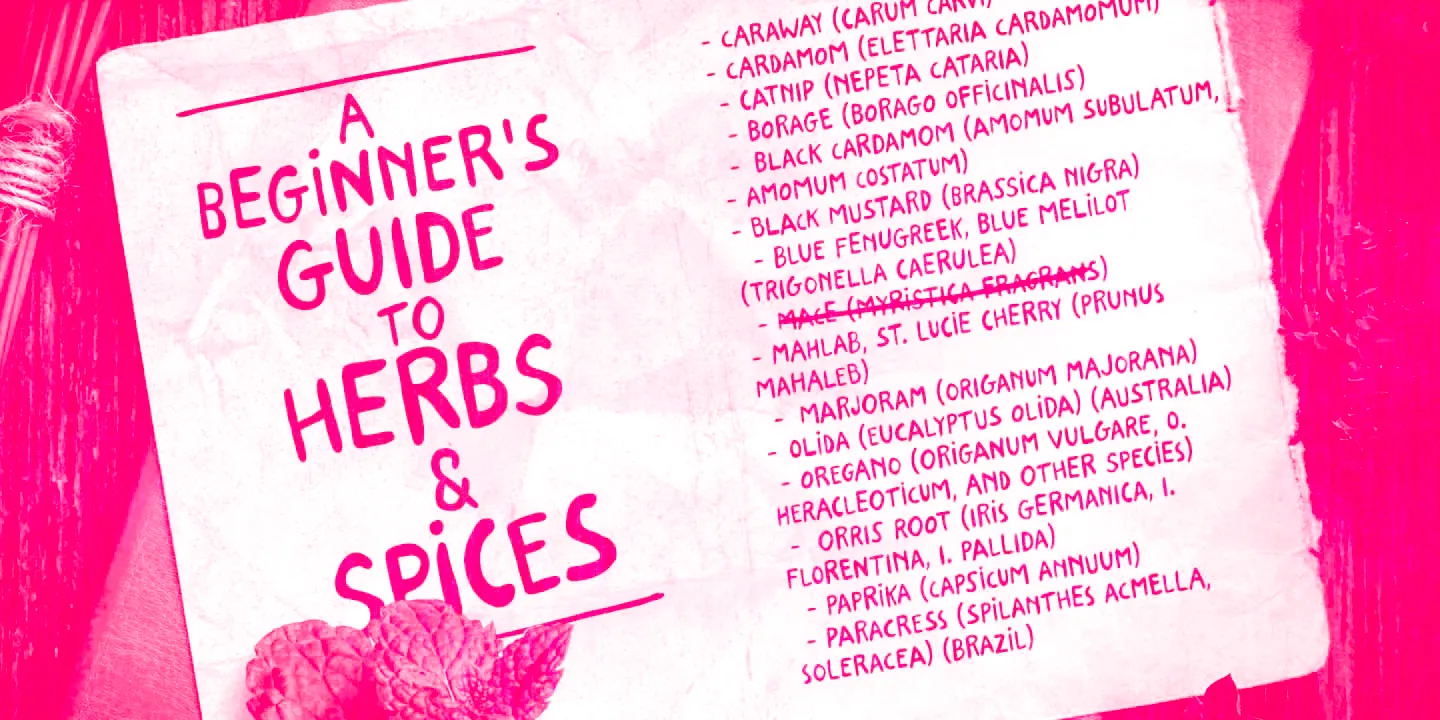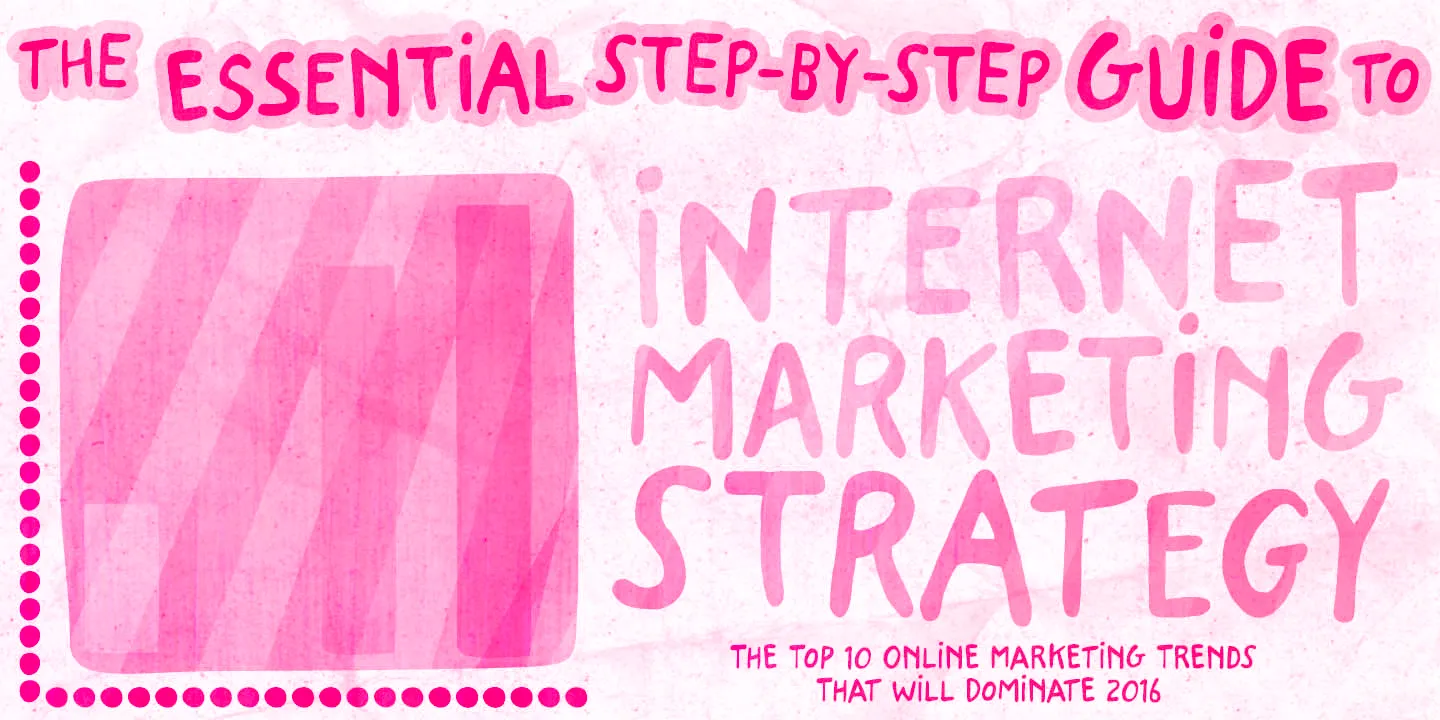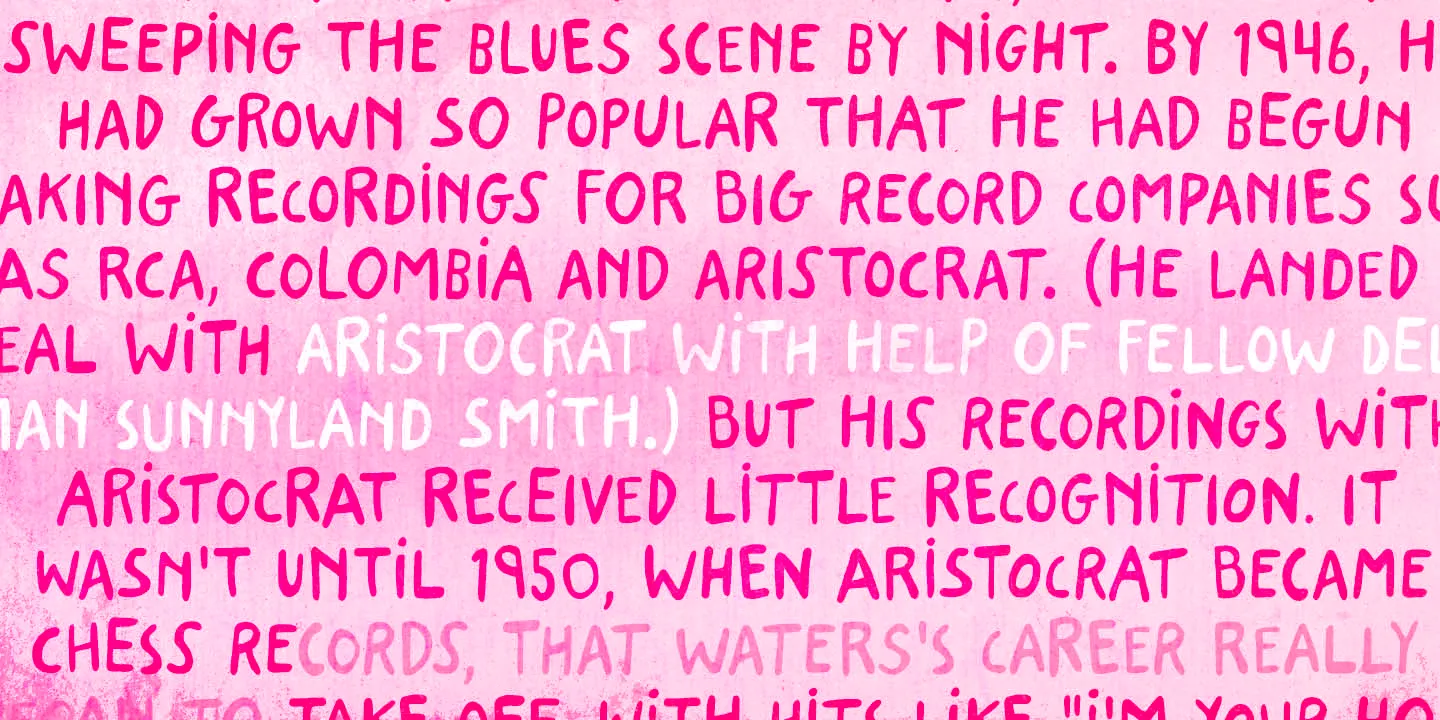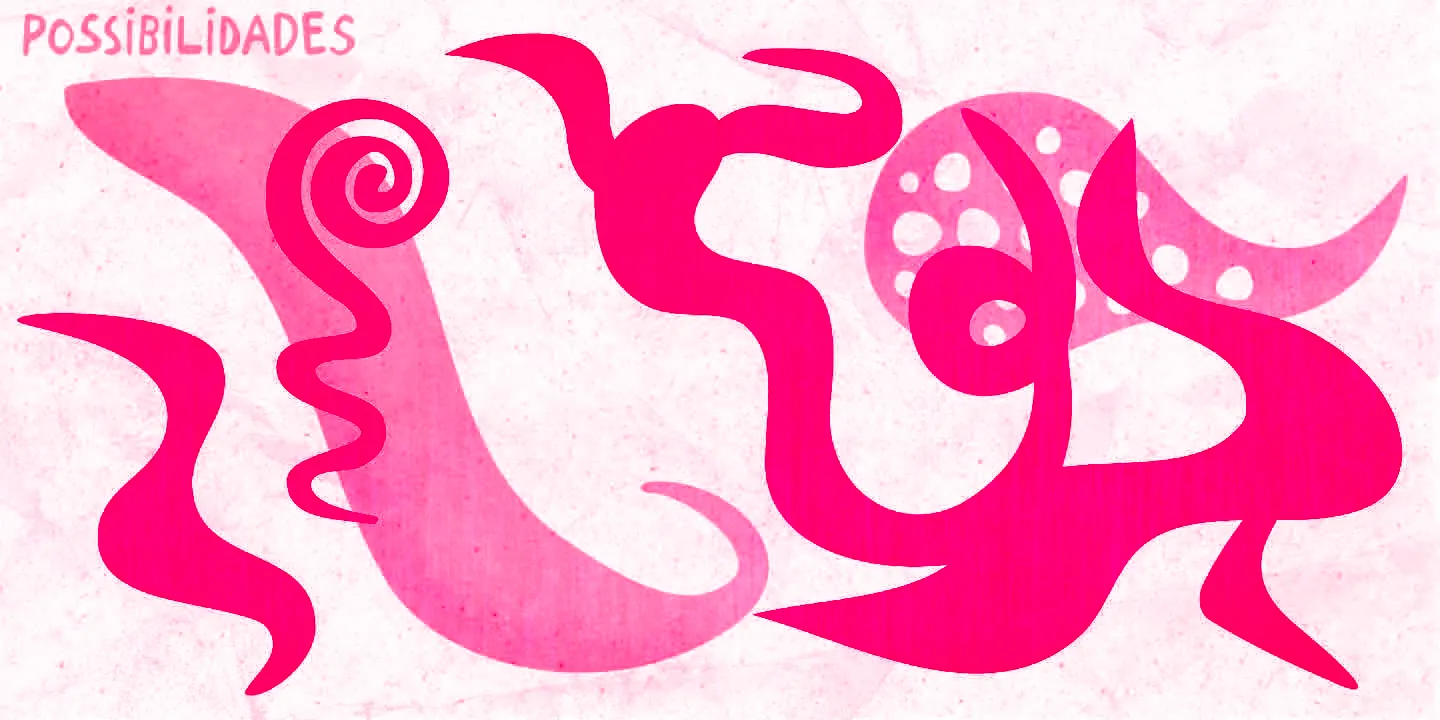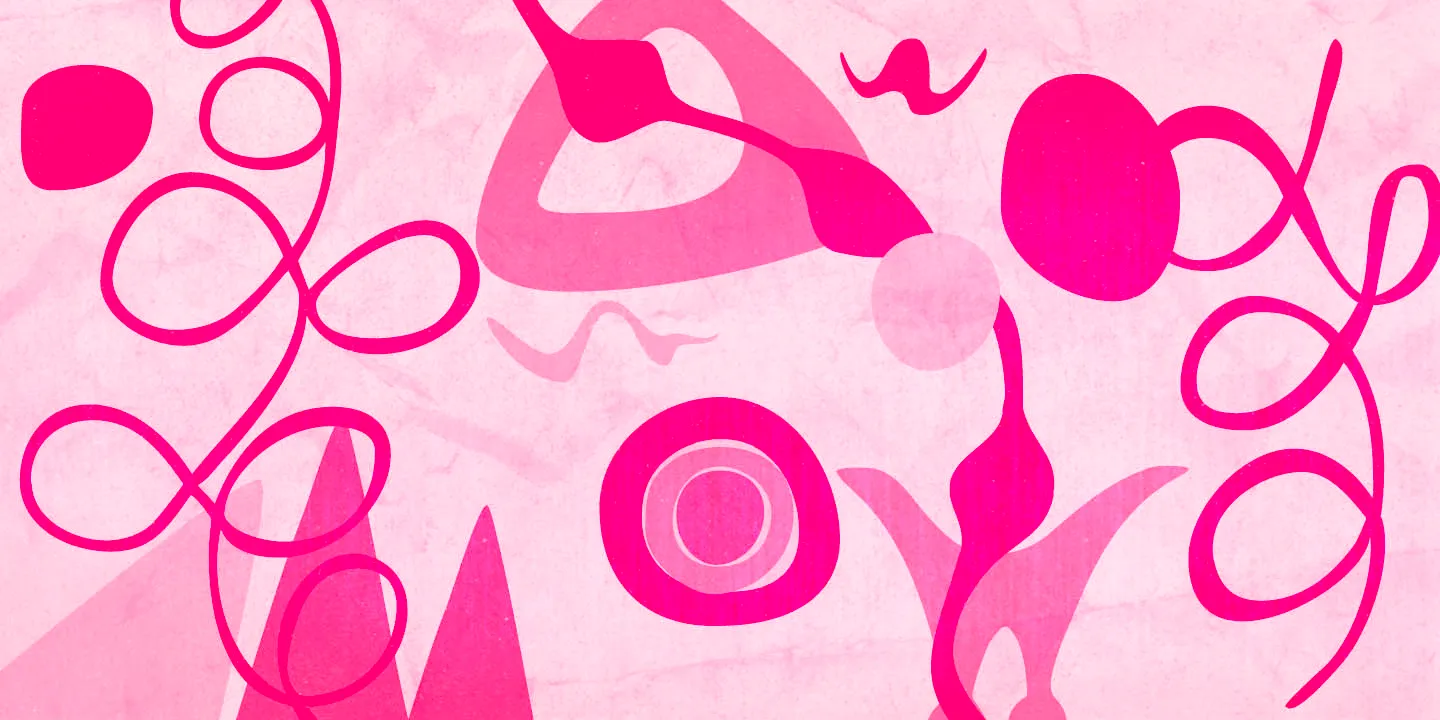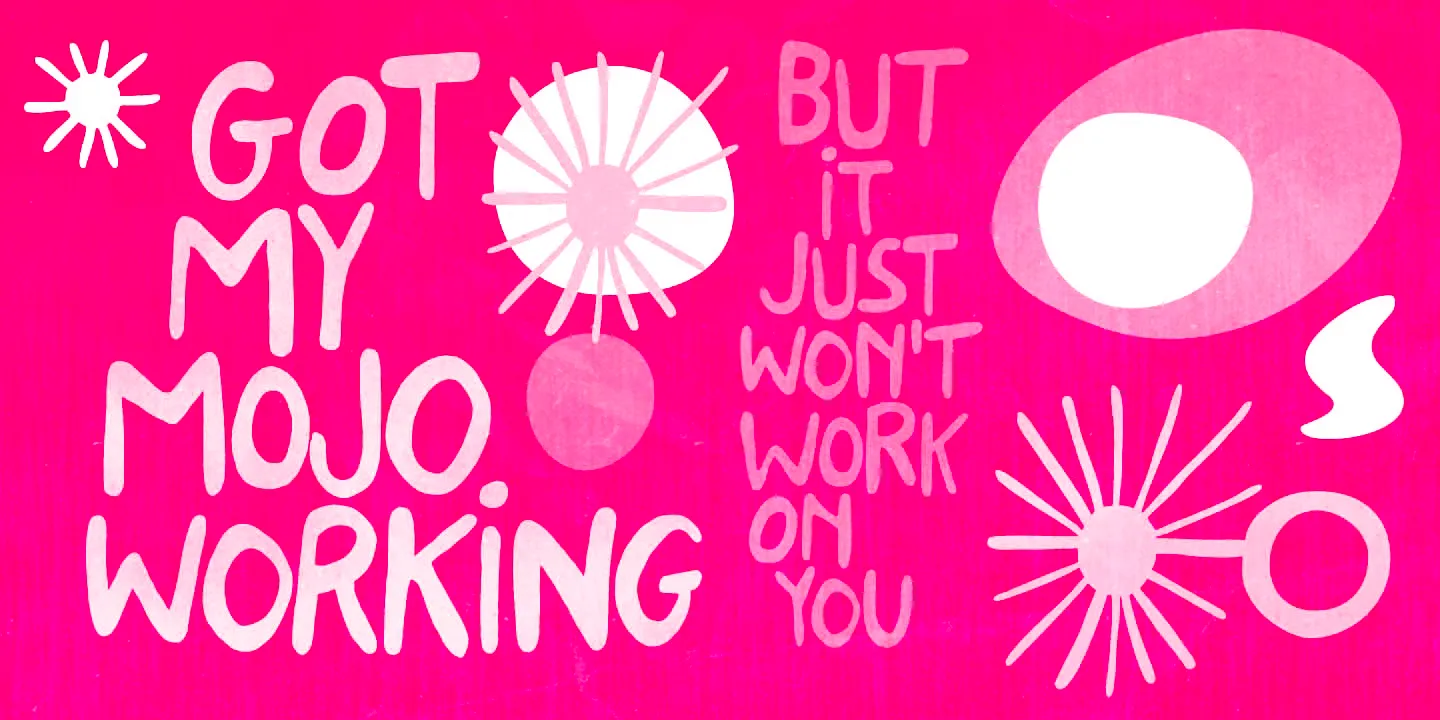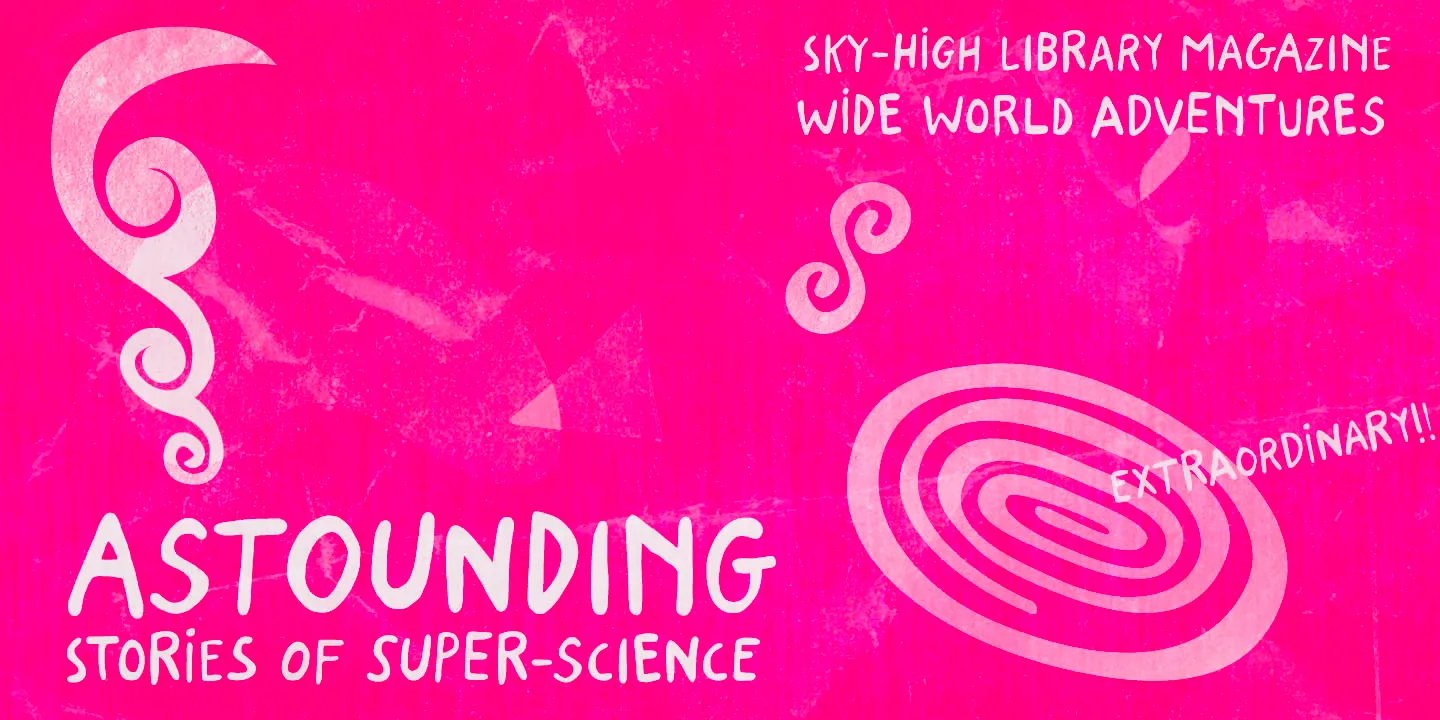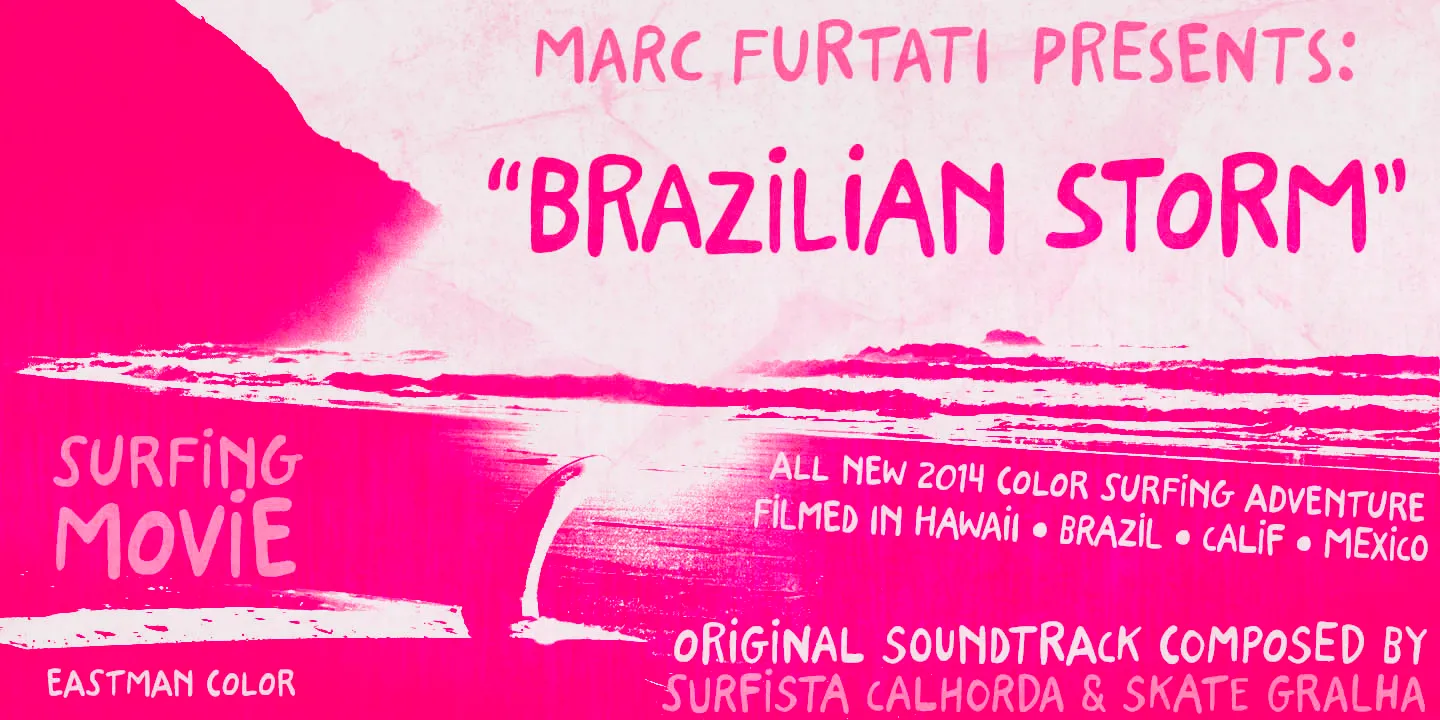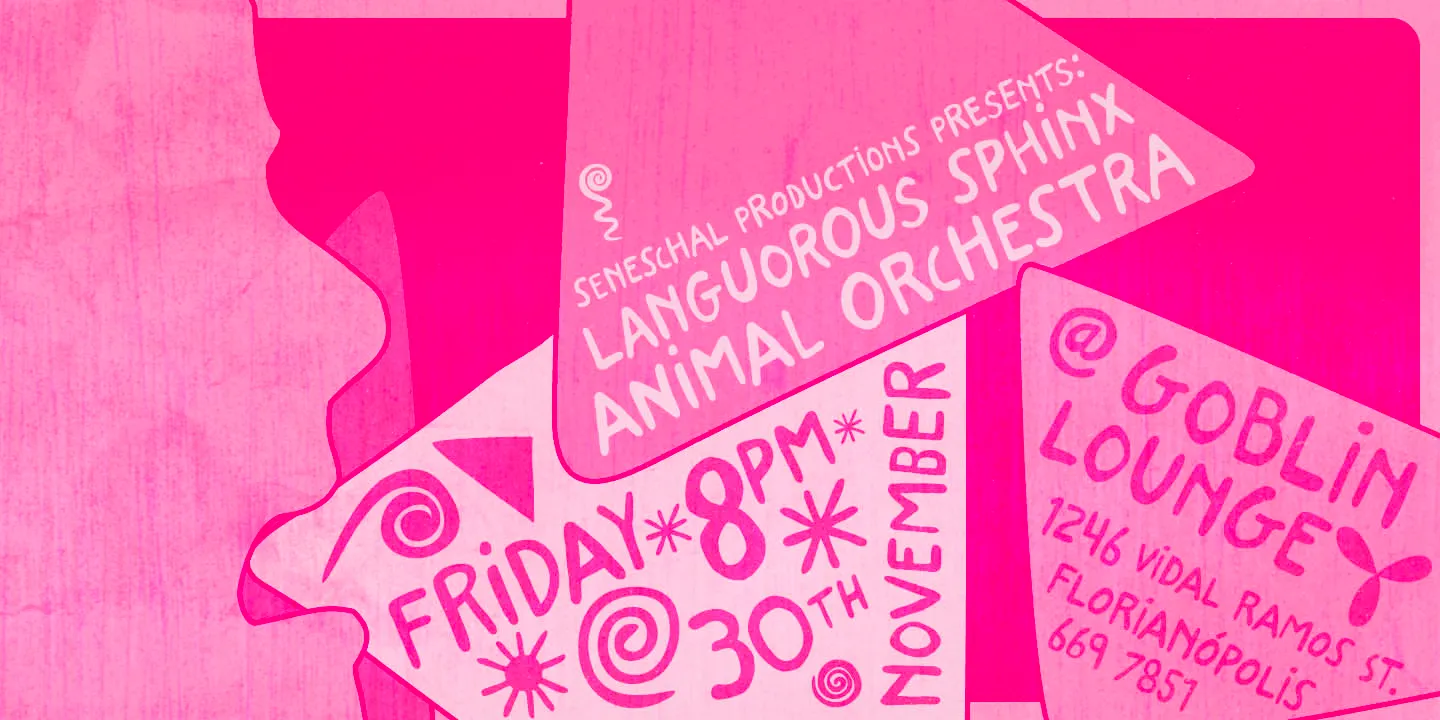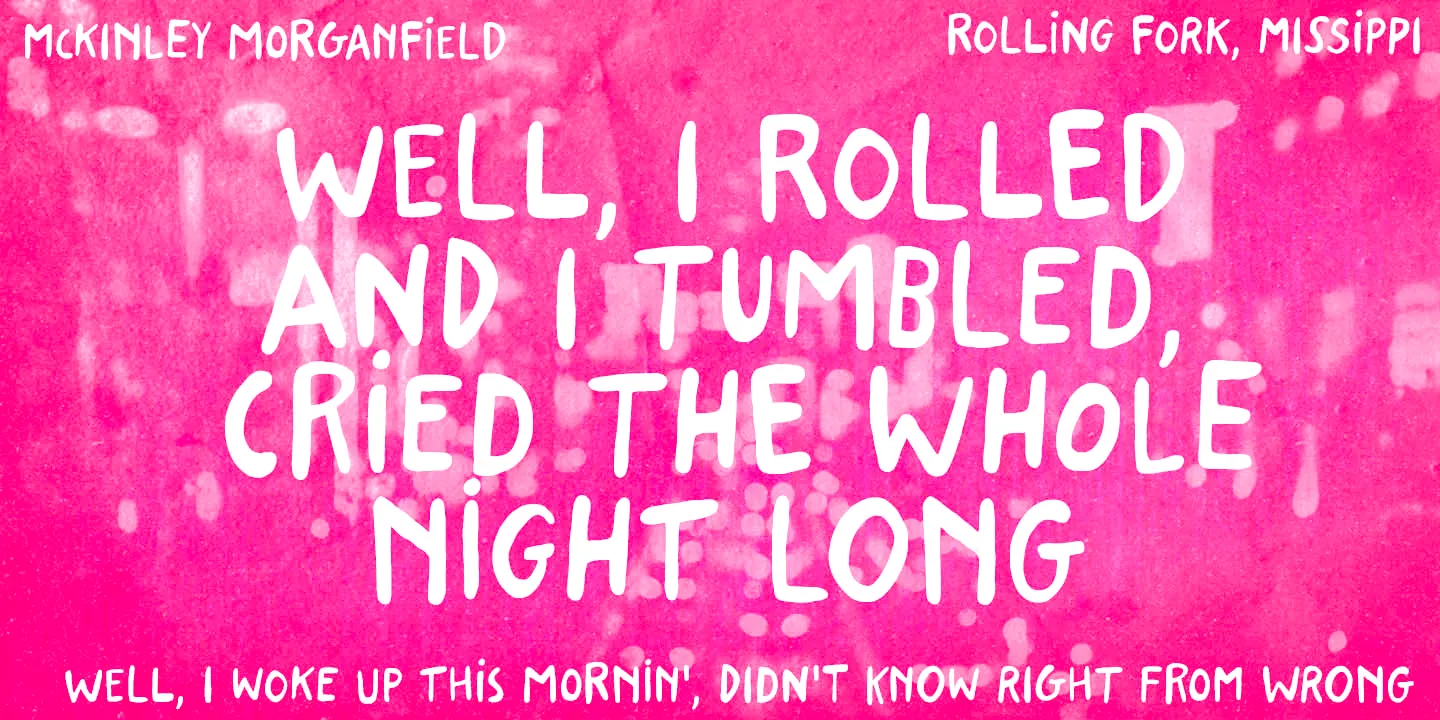
Stabile Font Family
Stabile
Stabile is a stylishly casual hand-lettered typeface with ​​loads of good vibes. It has four alternates for each letter, two for each numeral — plus swashes for extra flair — to add a natural, uneven quality. There is also a delish accompanying font, Stabile Toys, packed with organic shapes inspired by the breathtaking work of the American artist Alexander Calder. Stabile is charmingly flexible and distinctly suited to food packaging, comic book headlines, party invitations, and game design.
• Ordinal Numerals
• Swashes